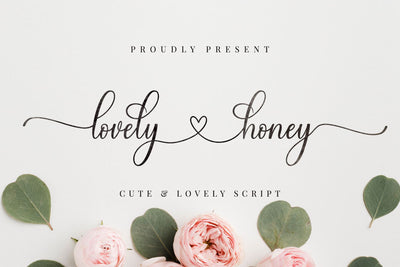
Lovely Honey - Cute Script Font
Lovely Honey is a beautiful and perfect script font that has unique characters and combination of the connecting heart, very perfect for wedding invitation, stationery, social media post, logotype and greeting cards.